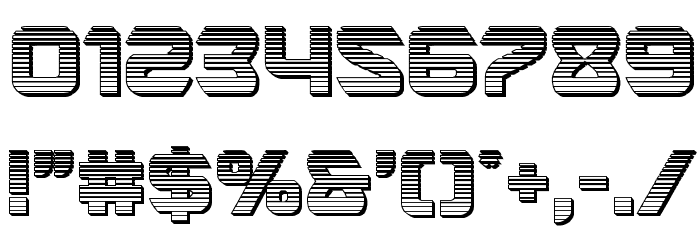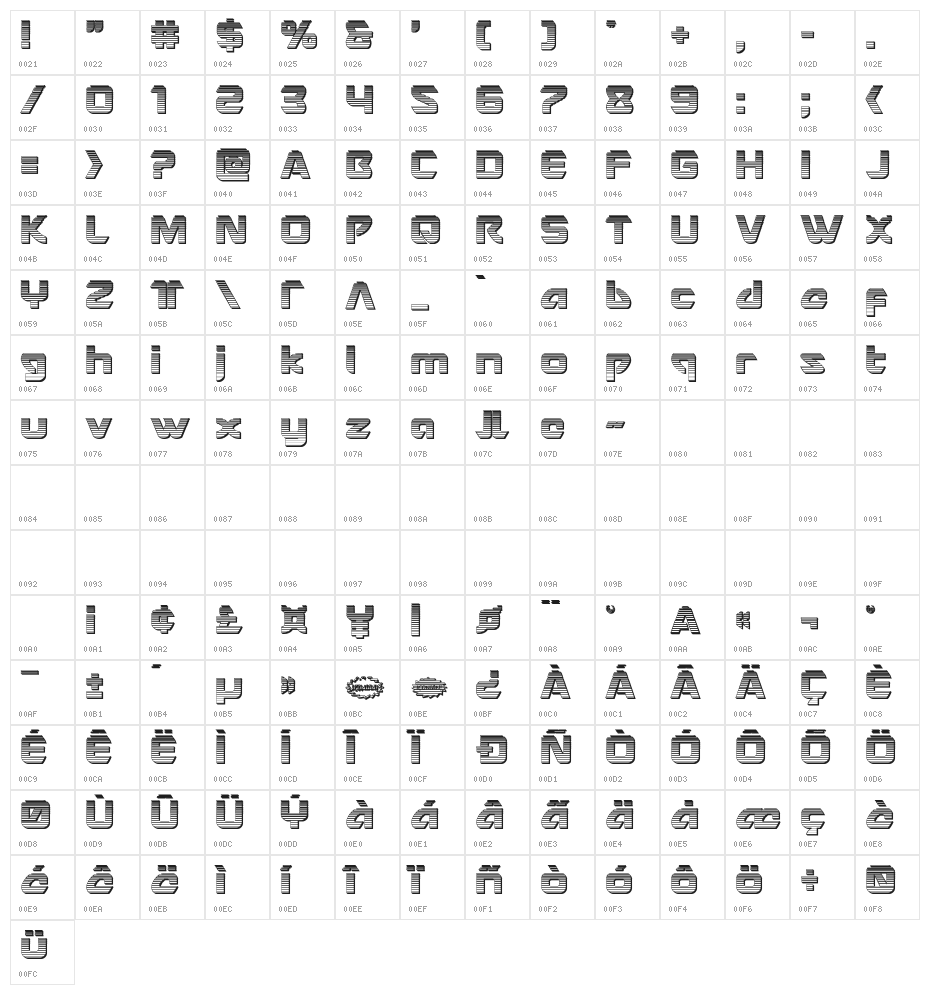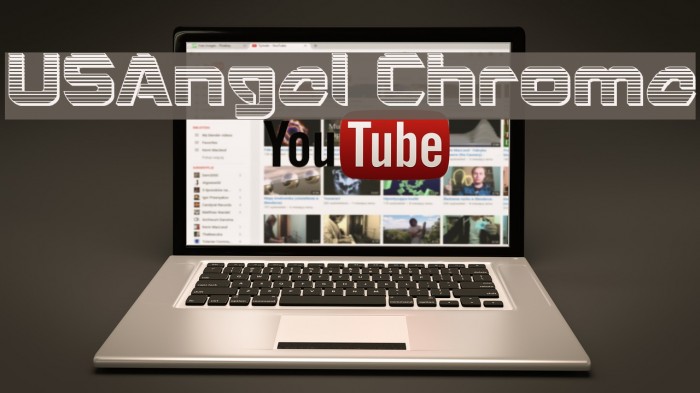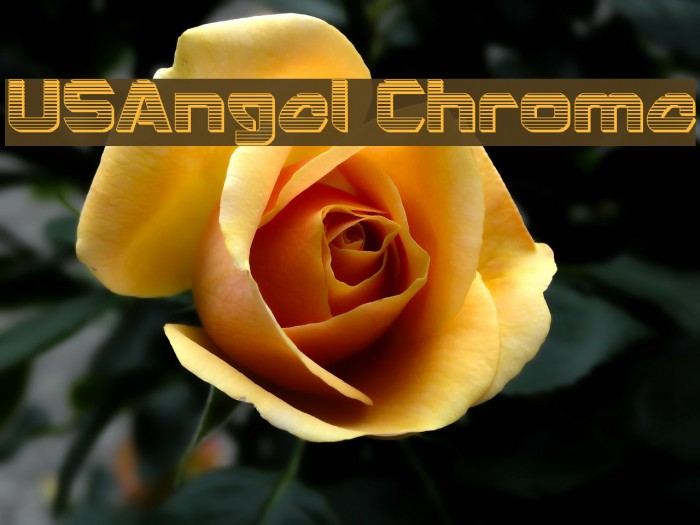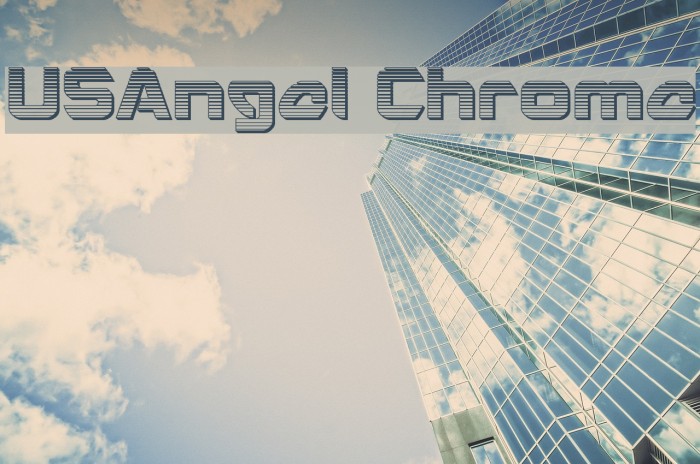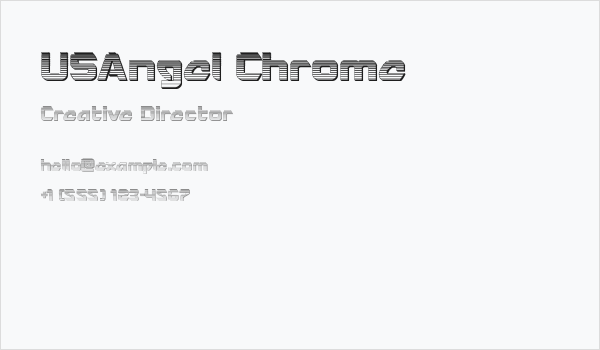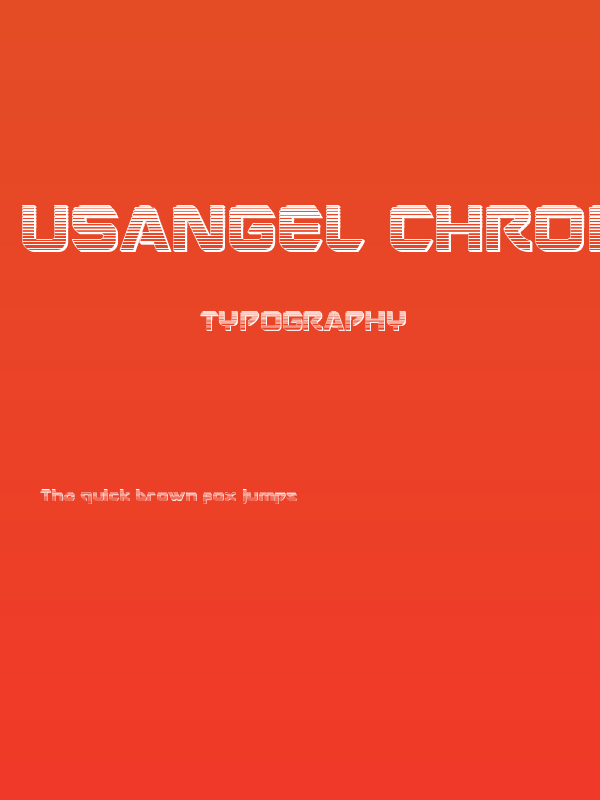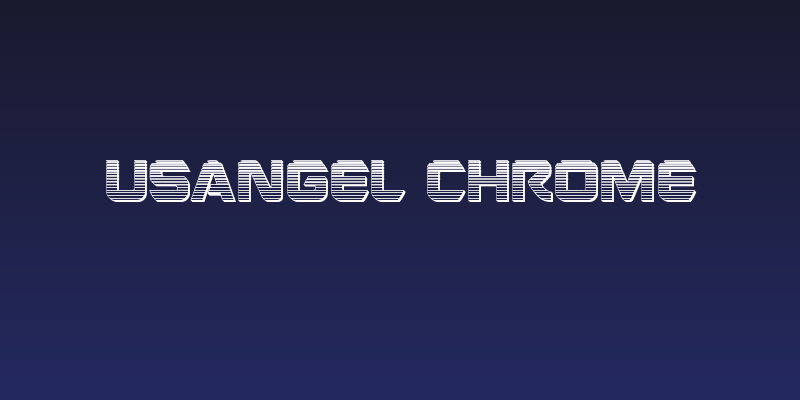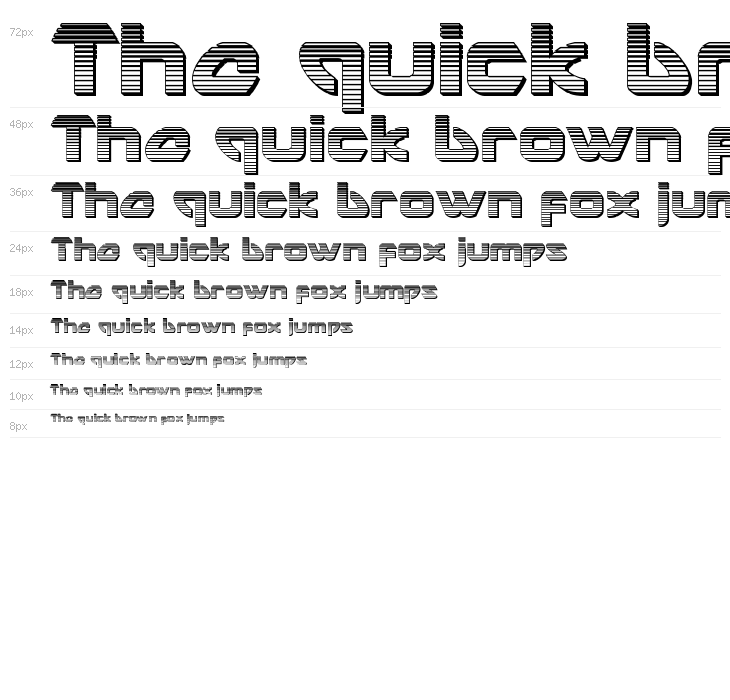
USAngel Chrome Font
USAngel Chrome Description
This font features a bold, futuristic design with a distinct striped pattern running horizontally across each character. The geometric shapes and sharp angles give it a modern and edgy appearance. The uppercase and lowercase letters maintain a consistent style, with the stripes creating a sense of movement and depth. Numbers and special characters are equally stylized, ensuring a cohesive look across all elements. The font's unique design makes it stand out, ideal for projects that require a strong visual impact.